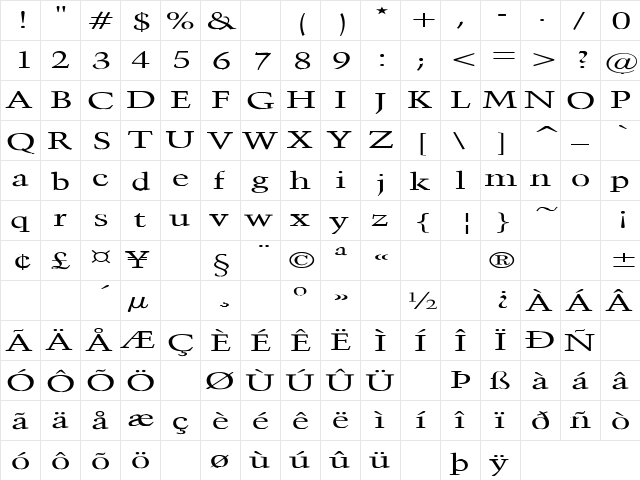
Cheesecake 5 Regular
Design Context for Cheesecake 5 Typeface
Cheesecake 5 is a composed and adaptable typeface that performs quietly and consistently across a wide range of design contexts.
Pro Tip: Use Cheesecake 5 in both headline and body roles to test its range before committing to a single application.